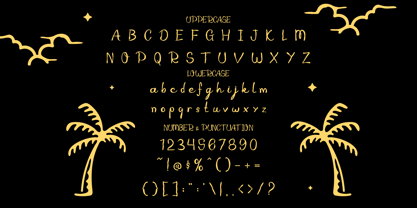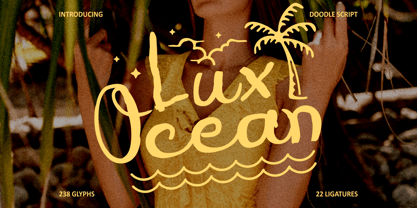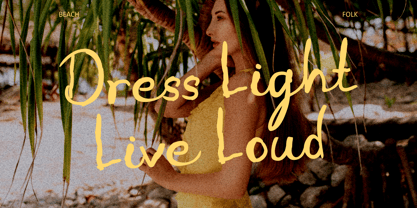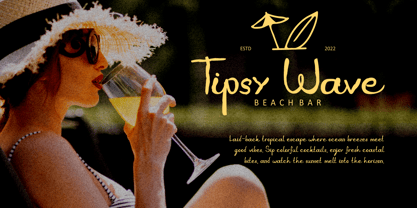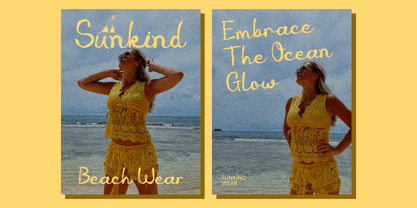
Lux Ocean
by Putracetol
The Lux Ocean Font Family was designed by Putra Novembria Candra Kusuma and published by Putracetol. Lux Ocean contains 1 styles. More about this family
Lux Ocean Doodle Script Font is a smooth and organic handwritten typeface inspired by the breezy rhythm of seaside life. Each letter flows naturally with a loose, casual stroke that mimics the movement of waves and the softness of sand. The thin yet steady lines give it a handwritten balance between elegance and spontaneity. Its doodle-style touch and handcrafted ligatures bring out a warm, authentic vibe—perfect for adding a personal, sun-kissed character to your designs. With a graceful rhythm and slightly uneven forms, Lux Ocean Doodle Script Font delivers a refreshing sense of calm and playfulness at once. Ideal for branding, logo design, packaging, and creative quotes, this font captures the essence of natural beauty and laid-back energy. It’s great for projects related to beachwear, summer promotions, wellness products, or lifestyle magazines. The handwritten movement makes it highly expressive, while the doodle aesthetics keep it approachable and human. Lux Ocean Doodle Script Font enhances every composition with a stylish yet easygoing tone, offering a design atmosphere that feels light, natural, and inspired by ocean breeze creativity.